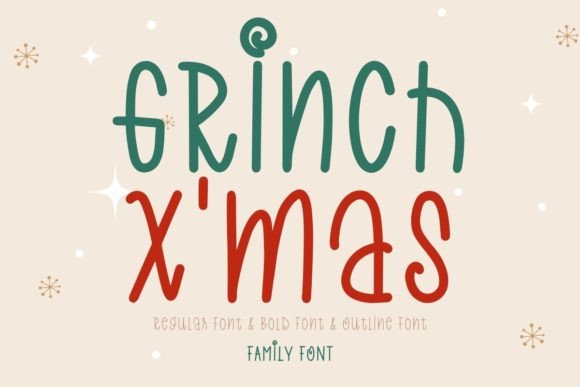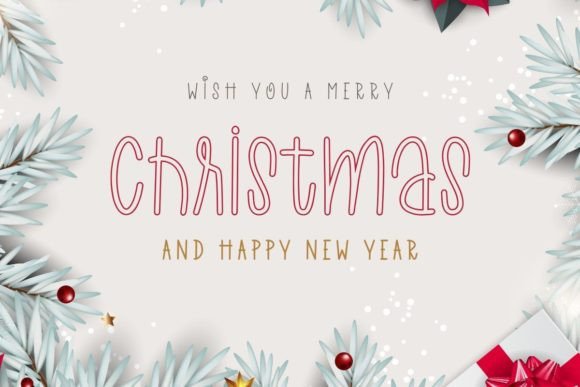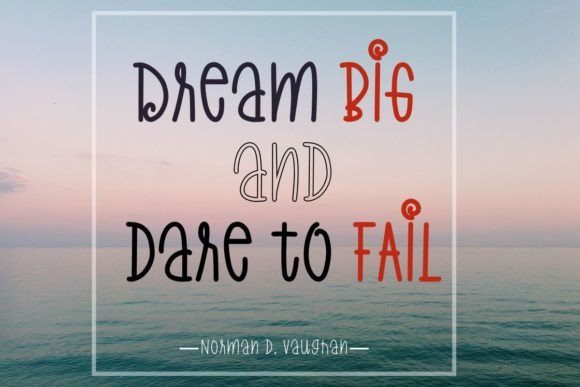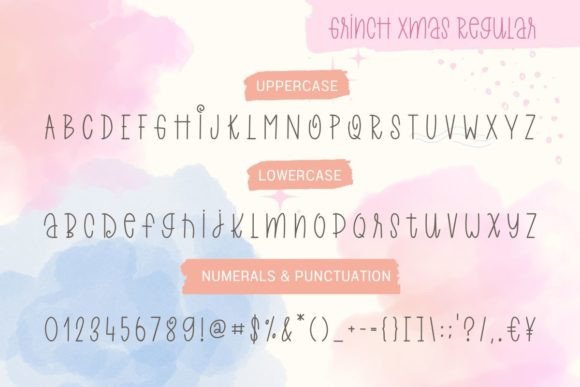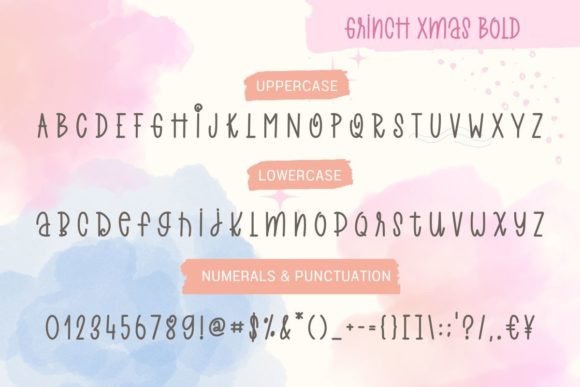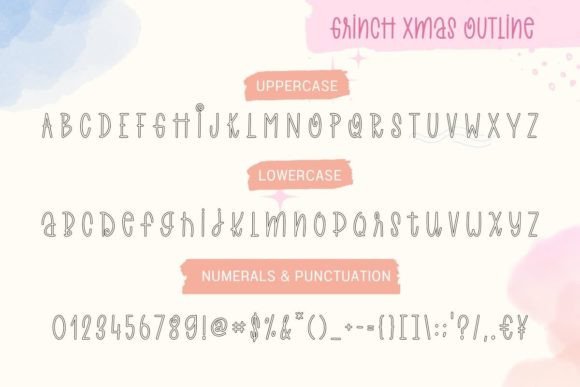
Grinch X’mas Font
About Grinch X’mas Font
Grinch X’mas Font is a cute handwritten typeface designed to spread joy and festive charm. With its playful strokes and light-hearted look, this font instantly brings a cheerful holiday vibe to any creative project. Whether you’re crafting for Christmas or simply want a fun, cozy design style, Grinch X’mas is your go-to choice.
Perfect for Every Holiday Project
You can use Grinch X’mas Font in a wide range of applications. For instance, it’s ideal for:
• Holiday Cards – Make your season’s greetings feel warm and personal.
• Mugs and Apparel – Add a playful twist to shirts, hoodies, or ceramic gifts.
• Banners and Posters – Draw attention to your festive sales or events.
• Social Media Posts – Create holiday-themed captions or product mockups with flair.
• DIY Crafts and Gifts – Personalize everything from wrapping paper to gift tags.
Its casual, fun style brings out the joy of the holidays while still being easy to read.
Why Choose Grinch X’mas Font?
Here’s what makes Grinch X’masFont stand out:
• Cute and friendly design suitable for all ages
• Handwritten charm with a seasonal twist
• Easy to pair with script or sans-serif fonts
• Works well in print and digital formats
• Instantly boosts the festive spirit of your designs
Whether you’re working on a holiday campaign or just spreading cheer, thisfont fits right in.